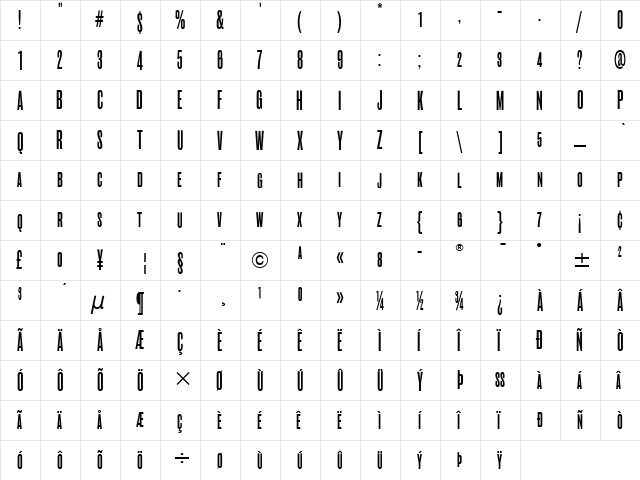
Roswell SC Three ITC Medium
| Foundry | International Typeface Corporation |
Design Context for Roswell SC Three ITC Typeface
Roswell SC Three ITC takes a measured approach to typography — its balanced proportions and neutral character make it a reliable workhorse for both digital and print work.